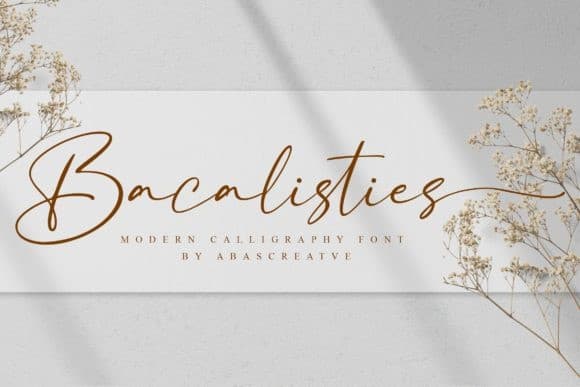
Bacalisties Script Font Free
Bacalisties Script Font is a handwritten script font with a Gel pen and natural style, This Typeface is designed and shared by AbasCreative. Bacalisties feels incredibly elegant and flowing. It looks stunning on wedding invitations, thank you cards, quotes, greeting cards, logos, business cards and every other design which needs a handwritten touch. It features a varying baseline, smooth lines, gorgeous glyphs and stunning alternates.